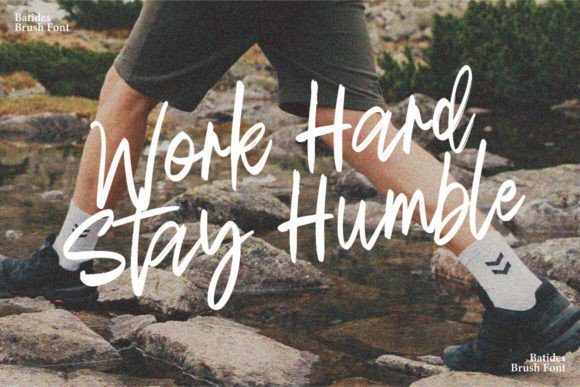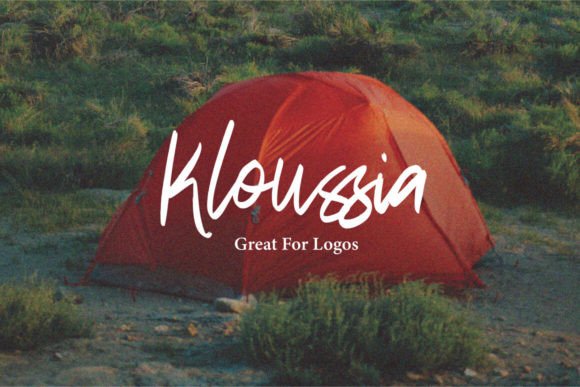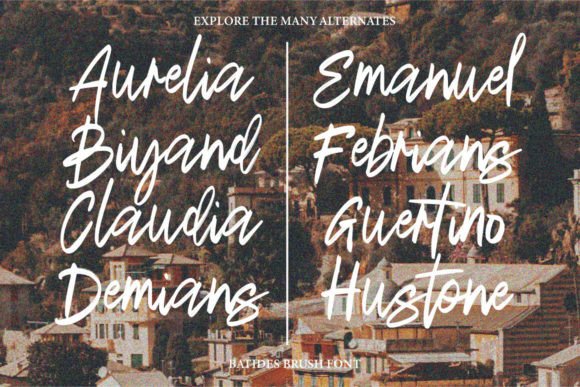
Unleashing the Personality of Batides Brush Font
As designers, we’ve all been there – staring at a blank canvas, waiting for inspiration to strike. It’s the moment when a single font can make all the difference between a mediocre design and a masterpiece. For many creatives, that moment of magic came with the discovery of Batides Brush Font – a typeface with a personality that’s as unique as it is captivating.
With its versatility and high-quality design, Batides Brush Font has become a go-to resource for designers looking to add a touch of elegance and sophistication to their creative projects. From packaging and logos to posters and headlines, this font is a design resource that’s sure to elevate any project. And the best part? With its transparent background and free download options, it’s easier than ever to get started and bring your ideas to life.
Whether you’re a seasoned pro or just starting out, Batides Brush Font is a valuable addition to any designer’s toolkit. So why settle for a generic font when you can unleash the personality of Batides Brush Font and take your designs to the next level?
Key Features of Batides Brush Font
- Unique Hand-Drawn Style: The Batides Brush Font features a distinctive, hand-drawn design that adds a personal touch to any creative project.
- High-Quality Design Resource: This font is a valuable addition to any designer’s toolkit, offering a high-quality, professional look for a wide range of applications.
- Transparent Background: The font’s transparent background makes it easy to layer over images or other design elements, giving you complete control over your design.
- Resolution: The font is designed at a high resolution of 300 DPI, making it perfect for use in print and digital applications.
- Perfect for Creative Projects: Whether you’re working on a branding project, a marketing campaign, or a personal creative project, the Batides Brush Font is the perfect choice for adding a unique, hand-drawn touch.
Honest Review: Batides Brush Font
As a designer, I’m always on the lookout for high-quality fonts that can elevate my creative projects. The Batides Brush Font is a great addition to my design resource arsenal. I was impressed by the clean, modern design that makes it perfect for a wide range of applications, from digital design to print materials.
One of the things I love about the Batides Brush Font is its versatility. It comes with a transparent background, which makes it easy to use on any background color or image. This feature is especially useful for designers who want to create visually appealing graphics and designs.
- Transparent background for easy use on any background
- May not be suitable for projects that require a lot of bold typography
- Limited character set compared to other fonts
Overall, I’m impressed with the Batides Brush Font. It’s a great addition to any designer’s toolkit, and its free download makes it an excellent design resource. While it may have some limitations, its versatility and high-quality design make it a worthwhile download.
The Batides Brush Font is great for creating a variety of design elements, including logos, social media graphics, and illustrations. It’s also perfect for creating a consistent brand identity. Some common use cases include:
- Branding and logos
- Illustrations and graphics
- Design resources
Tips for Getting the Most Out of Batides Brush Font
To get the most out of Batides Brush Font, use it in conjunction with other design resources, such as high-quality images and graphics. Also, experiment with different font sizes, colors, and combinations to create unique and visually appealing designs.
Q: Is Batides Brush Font suitable for high-resolution printing?
Yes, the Batides Brush Font is designed to be high-quality and suitable for high-resolution printing. It’s optimized for use in a variety of design contexts, including print materials like business cards, brochures, and posters. The font’s high-quality design ensures that it will look great in print, even at large sizes.